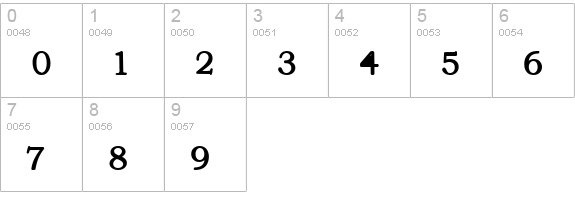
Introducing Text Serif HPLHS, a timeless and elegant font that will elevate your design projects to new heights. With its clean lines and classical serifs, this typeface exudes sophistication and professionalism. Text Serif HPLHS is the perfect choice for any text-heavy project, whether it's a book, magazine, or website. Its legibility and versatility make it suitable for both body text and headlines, ensuring a cohesive and visually pleasing design throughout. What sets Text Serif HPLHS apart is not only its impeccable design, but also its accessibility. We believe in providing high-quality resources to designers and enthusiasts alike, which is why this font is available for free download at FontsMarket.com. Whether you are a professional designer or a passionate hobbyist, Text Serif HPLHS will become an invaluable asset in your creative toolkit. Its extensive character set includes various weights and styles, allowing you to effortlessly customize your designs and achieve the perfect typographic balance. The timeless elegance of Text Serif HPLHS will captivate your audience, leaving a lasting impression on any printed or digital medium. Its versatility and legibility ensure that your message will be conveyed with utmost clarity and style. Don't miss out on the opportunity to enhance your design projects with this exquisite font. Download Text Serif HPLHS for free at FontsMarket.com and unlock a world of possibilities for your next creative endeavor.